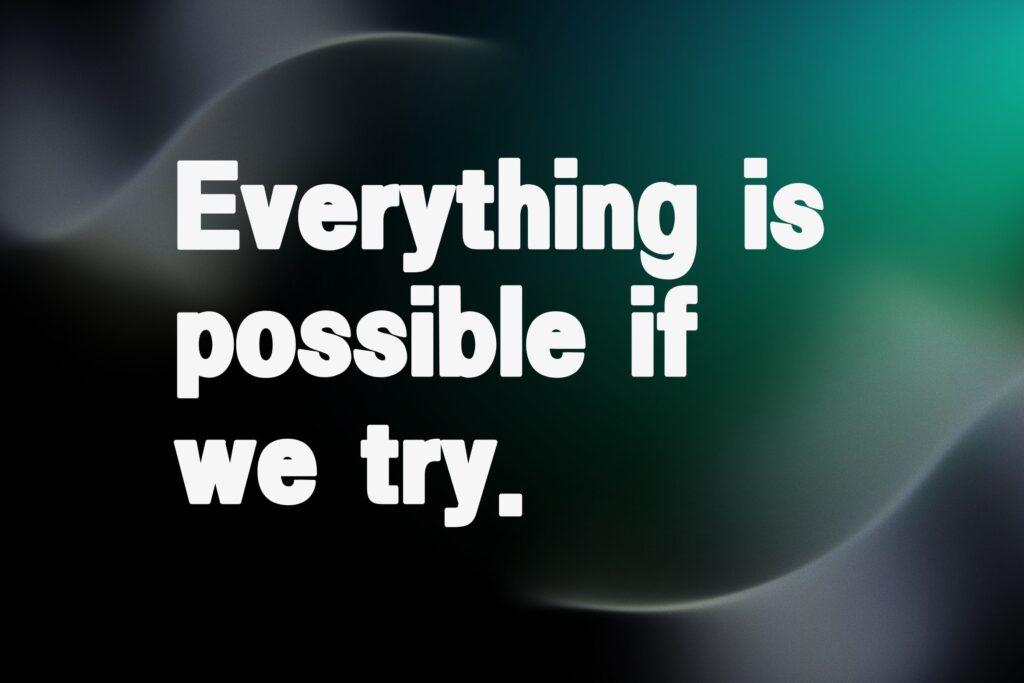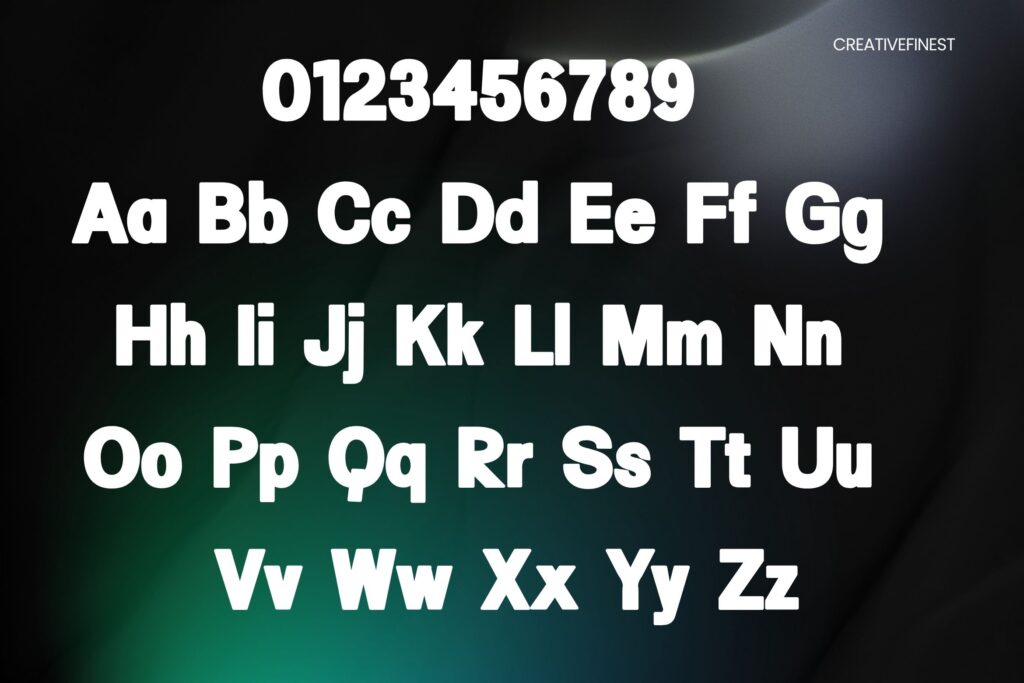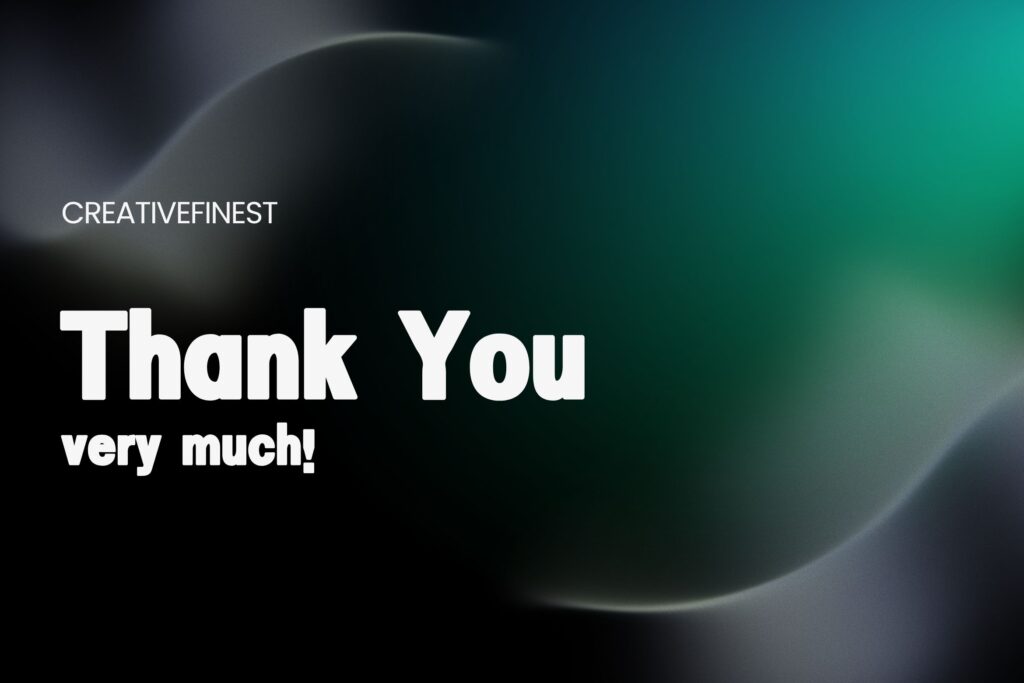
Nawabo Sans Serif
Nawabo Sans is a bold, modern sans serif typeface designed for maximum impact. With its thick, rounded letterforms and clean lines, it’s perfect for branding, posters, headlines, and packaging that demand attention. Available in Regular and Italic, Nawabo Sans combines strong presence with effortless readability, making it a versatile choice for both digital and print projects.
Crafted by CreativeFinest, this font delivers personality without compromising clarity—ideal for creatives looking to make a powerful statement.
🔤 Includes:
- Uppercase & lowercase
- Numbers & punctuation
- Multilingual support
👉 Perfect for:
Logos, advertising, streetwear designs, editorial layouts, and bold typographic compositions.